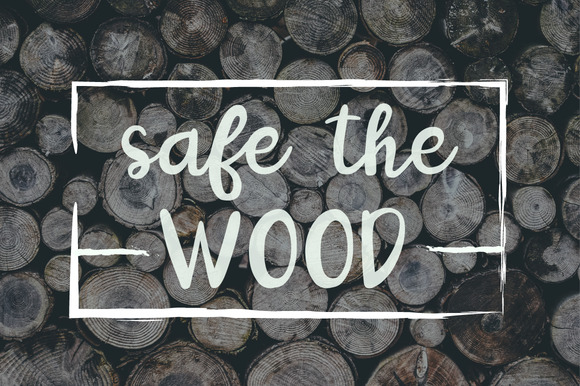
Introducing RosemaryUP Font: The Perfect Handwritten Script for Personalized Designs
Are you looking for a font that can add a personal touch to your designs? Look no further than RosemaryUP, a beautiful handwritten and hand-drawn script font. In this article, we’ll explore the features and benefits of RosemaryUP, and why it’s the perfect choice for designers who want to create unique and eye-catching designs.
What is RosemaryUP Font?
RosemaryUP is a handwritten and hand-drawn script font that is designed to bring a personal touch to your designs. It’s a unique and elegant font that is perfect for a variety of design projects, from branding and advertising to packaging and digital media.
RosemaryUP is a script font that is characterized by its flowing and connected letters. The font is designed to look like it was written by hand, with a natural and organic feel that is perfect for creating personalized designs.
Features of RosemaryUP Font
RosemaryUP has a number of features that make it a great choice for designers. Here are some of the key features of the font:
- Handwritten and hand-drawn: RosemaryUP is a truly unique font that is handwritten and hand-drawn. This gives it a natural and organic feel that is perfect for creating personalized designs.
- Elegant and sophisticated: RosemaryUP is an elegant and sophisticated font that is perfect for creating high-end designs. The font has a luxurious feel that is sure to impress.
- Flowing and connected letters: RosemaryUP has flowing and connected letters that give it a natural and organic feel. This makes it perfect for creating designs that need to have a personal touch.
- Perfect for a variety of design projects: RosemaryUP is a versatile font that is perfect for a variety of design projects, from branding and advertising to packaging and digital media.
Benefits of Using RosemaryUP Font
There are many benefits to using RosemaryUP in your designs. Here are some of the key benefits of the font:
- Adds a personal touch: RosemaryUP is a font that is designed to add a personal touch to your designs. It’s perfect for creating unique and eye-catching designs that stand out from the crowd.
- Creates a luxurious feel: RosemaryUP has a luxurious feel that is perfect for creating high-end designs. The font is elegant and sophisticated, making it perfect for luxury brands and high-end products.
- Easy to read: Despite its elegant and sophisticated feel, RosemaryUP is easy to read. The font is clear and legible, making it perfect for use in a variety of design projects.
- Versatile: RosemaryUP is a versatile font that can be used in a variety of design projects. It’s perfect for use in branding, advertising, packaging, and digital media.
How to Use RosemaryUP Font
Using RosemaryUP in your designs is easy. Here are some tips for getting the most out of the font:
- Use it for headlines and titles: RosemaryUP is a font that is perfect for use in headlines and titles. Its elegant and sophisticated feel makes it perfect for creating eye-catching designs.
- Pair it with other fonts: RosemaryUP can be paired with other fonts to create a unique and eye-catching design. Try pairing it with a sans-serif font for a contrasting look.
- Use it for branding and advertising: RosemaryUP is a font that is perfect for use in branding and advertising. Its luxurious feel makes it perfect for creating high-end designs that stand out from the crowd.
- Experiment with different colors and textures: RosemaryUP can be used with a variety of colors and textures to create a unique and eye-catching design. Experiment with different colors and textures to find the perfect look for your design.
RosemaryUP is a beautiful handwritten and hand-drawn script font that is perfect for adding a personal touch to your designs. Its elegant and sophisticated feel makes it perfect for creating high-end designs that stand out from the crowd.
Whether you’re a designer looking to create unique and eye-catching designs, or a business looking to create a luxurious brand image, RosemaryUP is the perfect choice. With its flowing and connected letters, elegant and sophisticated feel, and versatility, RosemaryUP is a font that is sure to impress.
- What is RosemaryUP font?: RosemaryUP is a handwritten and hand-drawn script font that is designed to bring a personal touch to your designs.
- What are the features of RosemaryUP font?: RosemaryUP has a number of features, including its handwritten and hand-drawn feel, elegant and sophisticated style, flowing and connected letters, and versatility.
- What are the benefits of using RosemaryUP font?: The benefits of using RosemaryUP include adding a personal touch to your designs, creating a luxurious feel, and being easy to read and versatile.
- How can I use RosemaryUP font?: RosemaryUP can be used in a variety of design projects, including branding and advertising, packaging, and digital media. It can be used for headlines and titles, paired with other fonts, and experimented with different colors and textures.